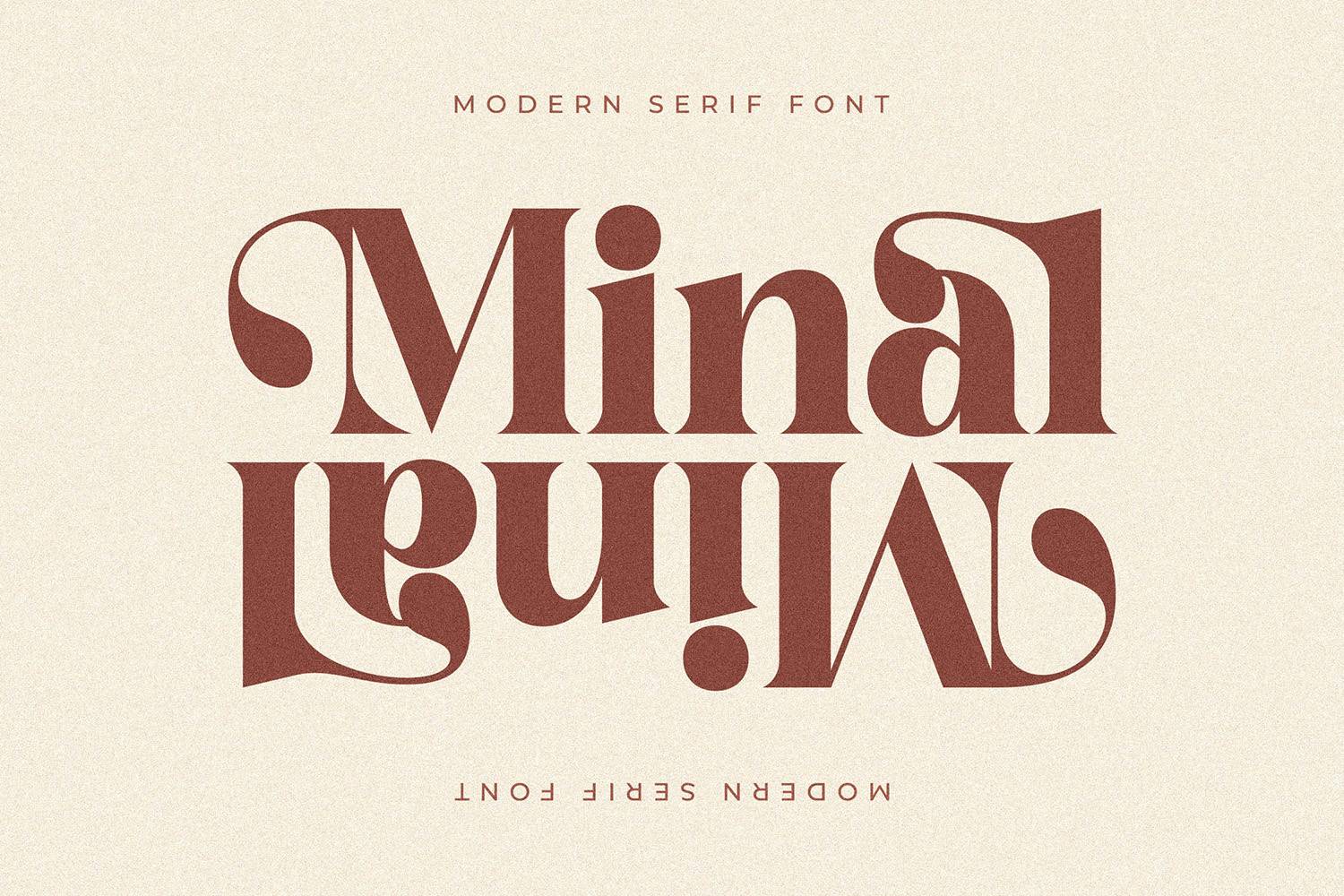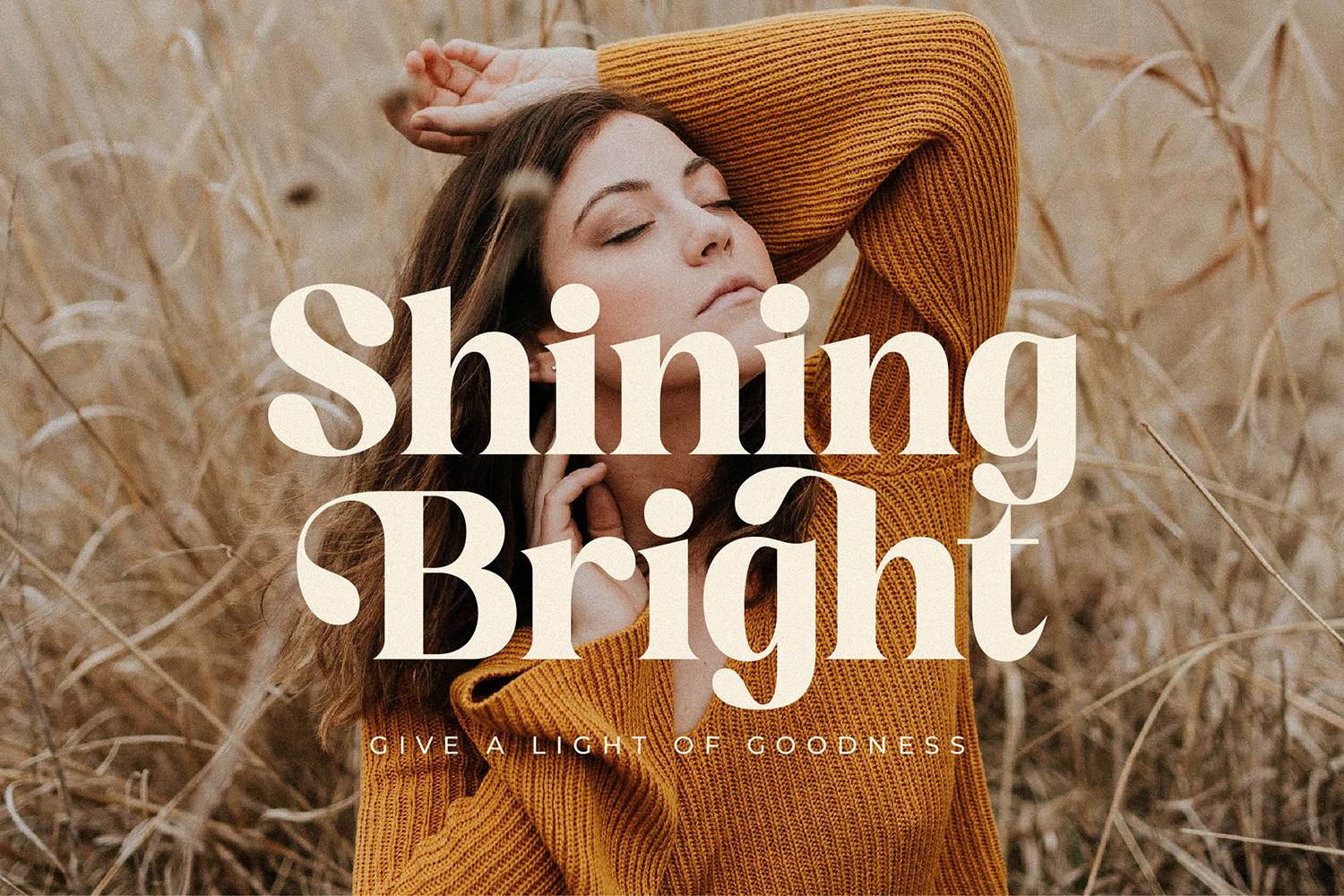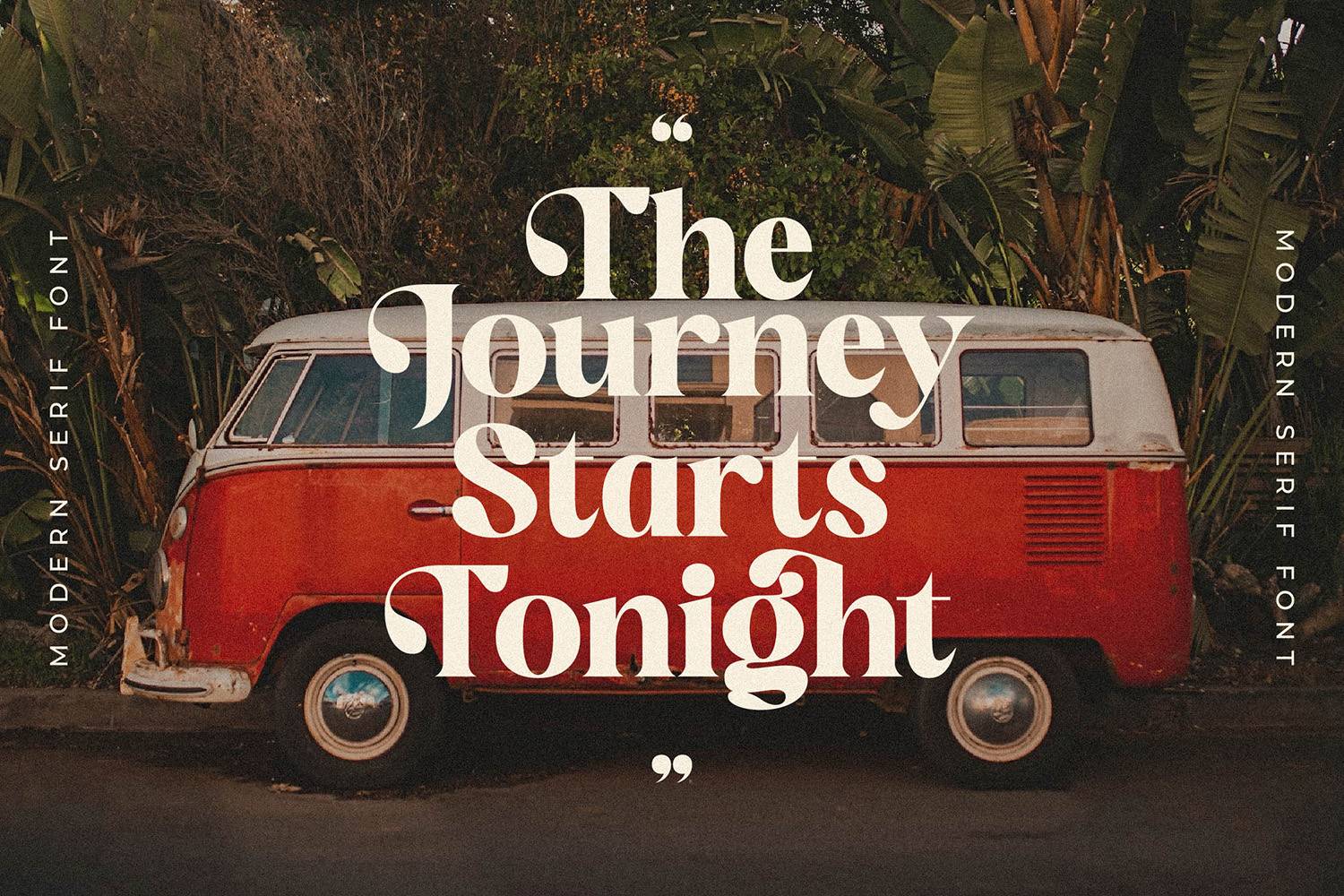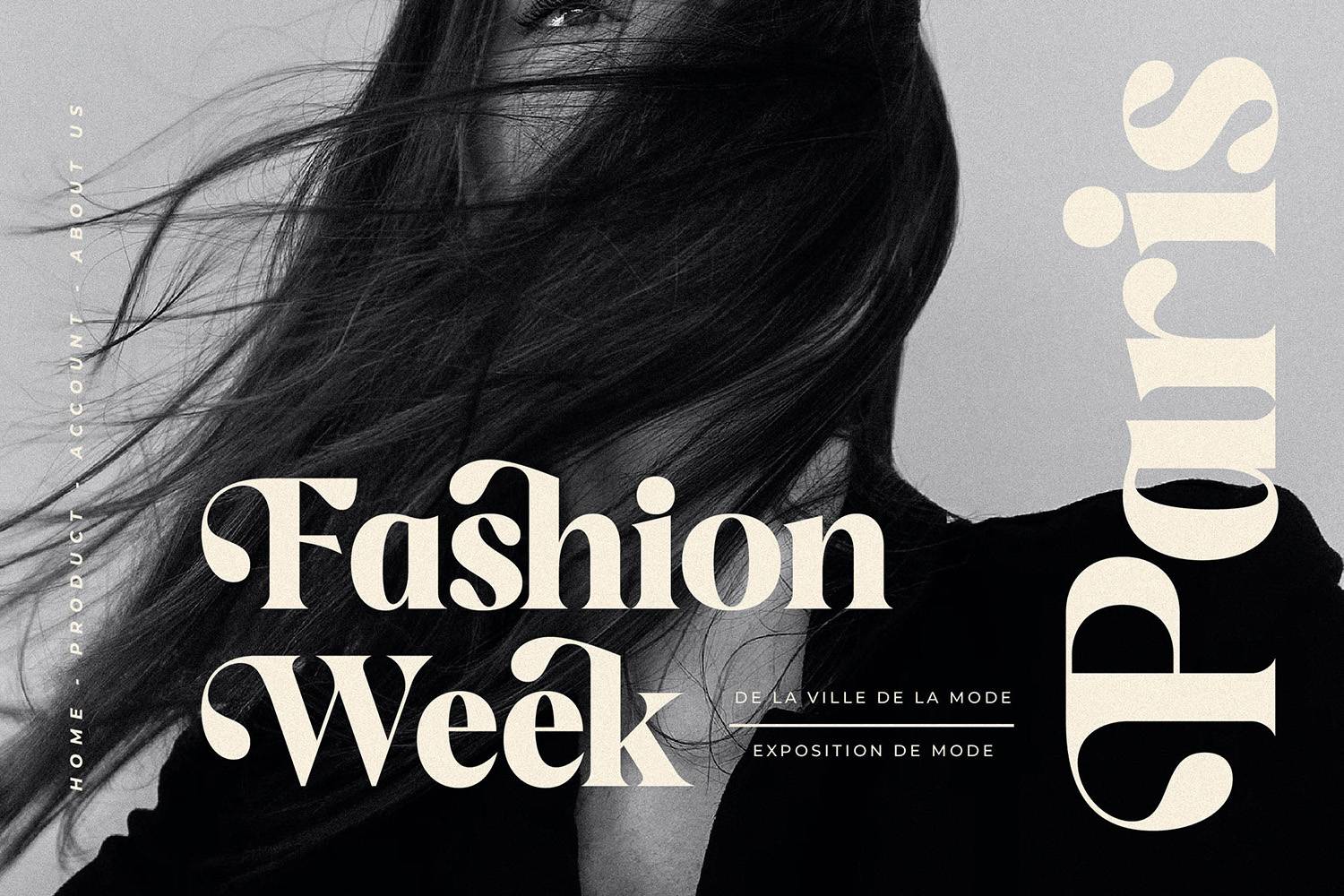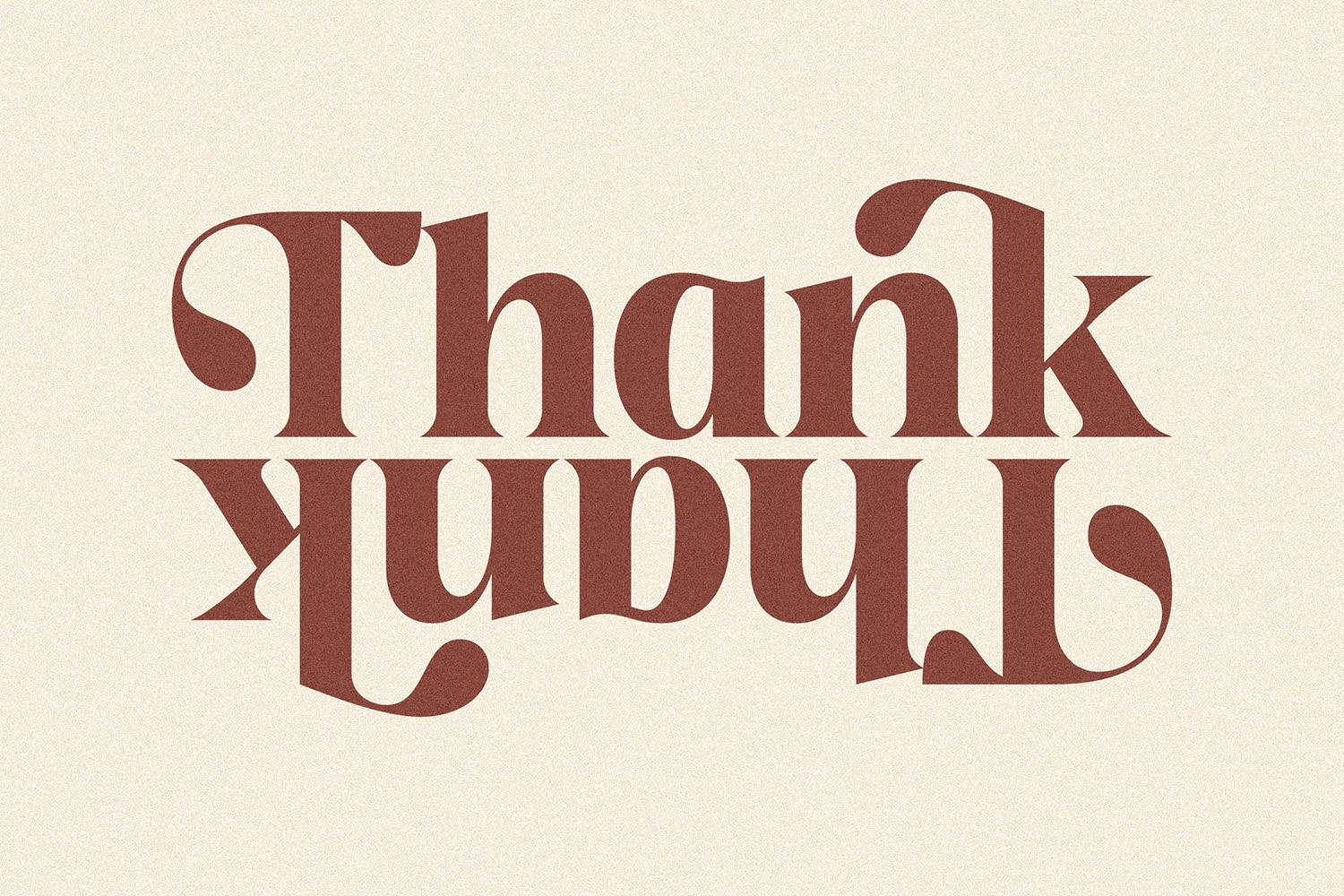
Minal is a bold serif typeface featuring high contrast between thick and thin strokes, sharp edges, and elegant bracketed serifs that give it a classic yet striking appearance. Its strong vertical stress and well-defined letterforms make it ideal for luxury branding, editorial headlines, and sophisticated packaging, where a refined and authoritative tone is desired. This font balances tradition with a modern flair, making it perfect for designs that want to convey elegance and confidence.
Minal Font
About Minal Font